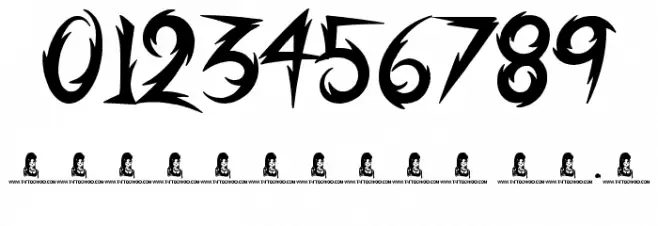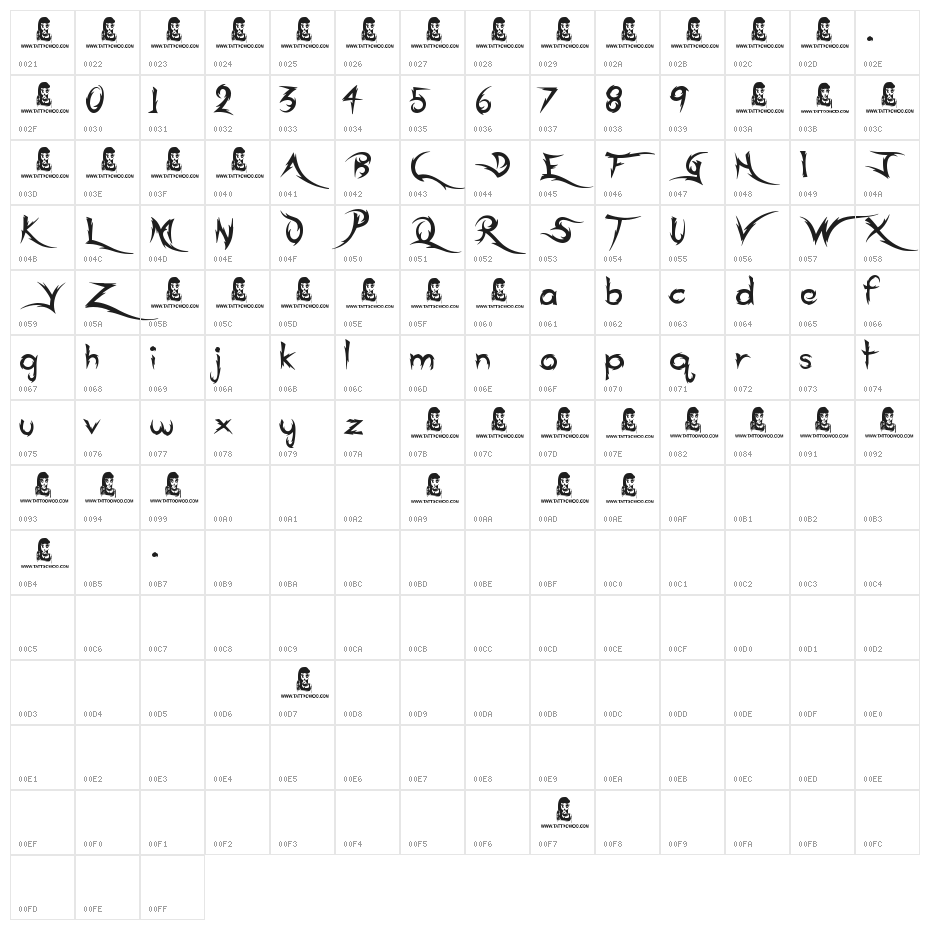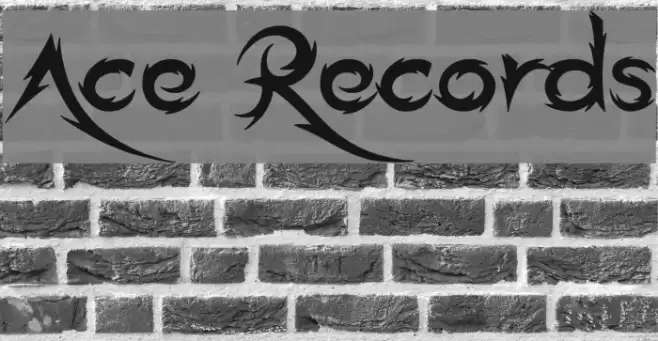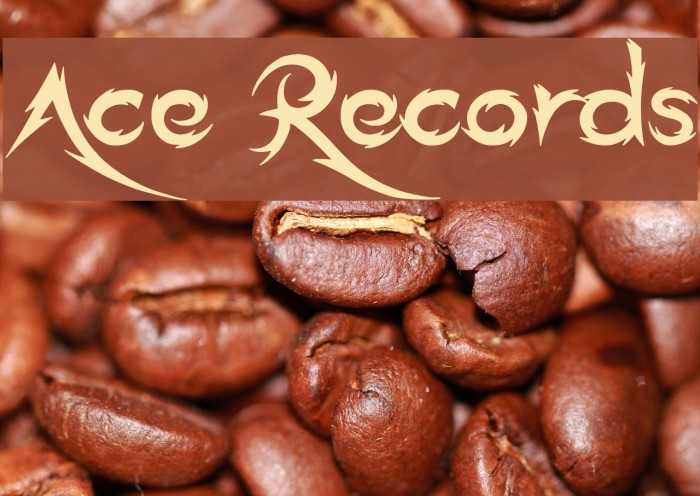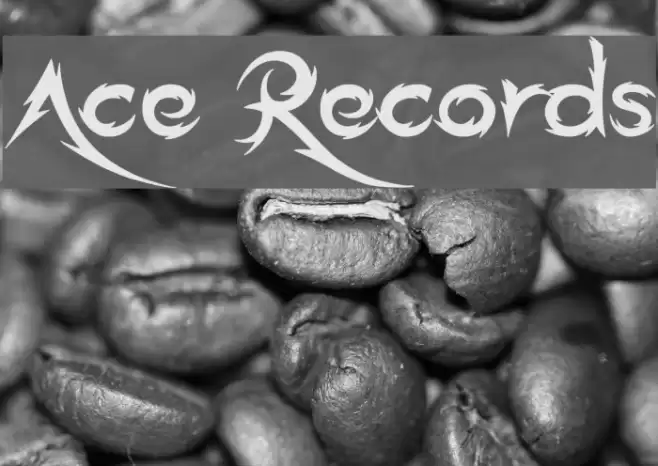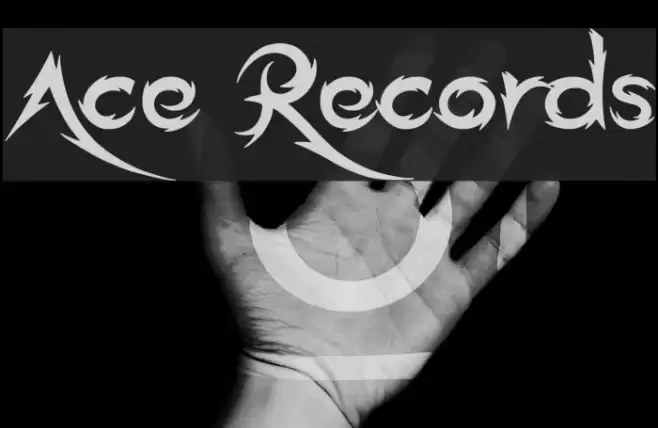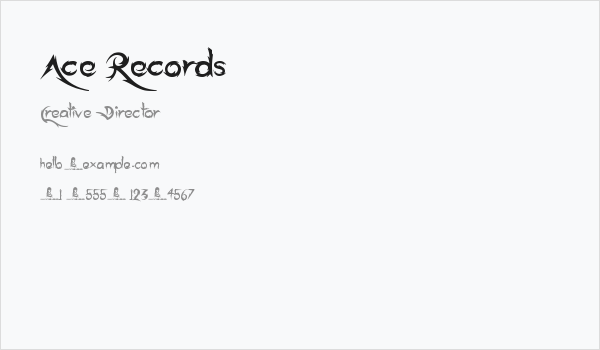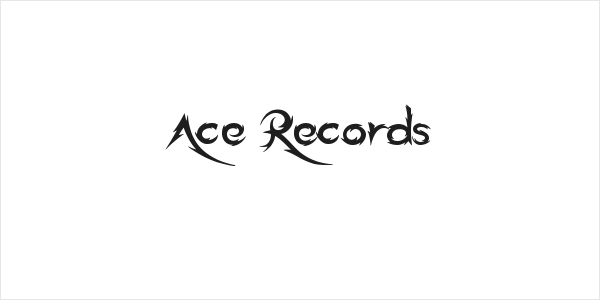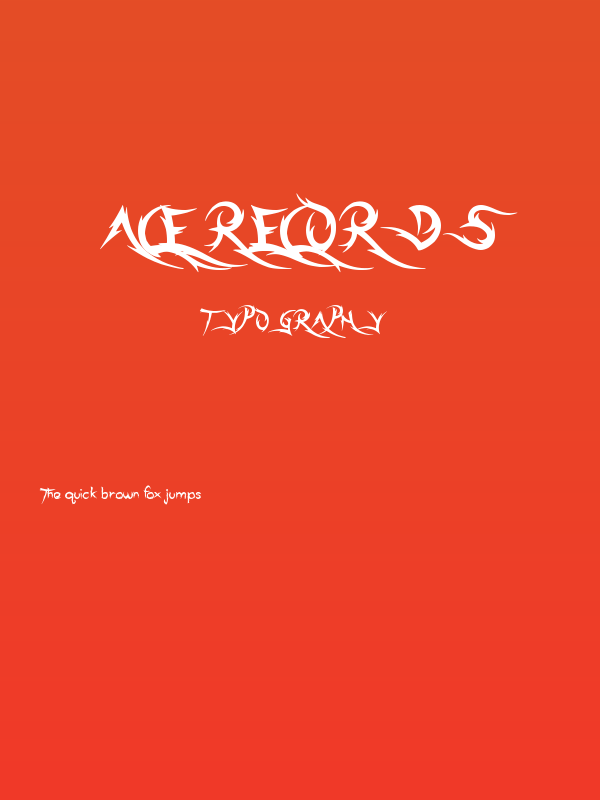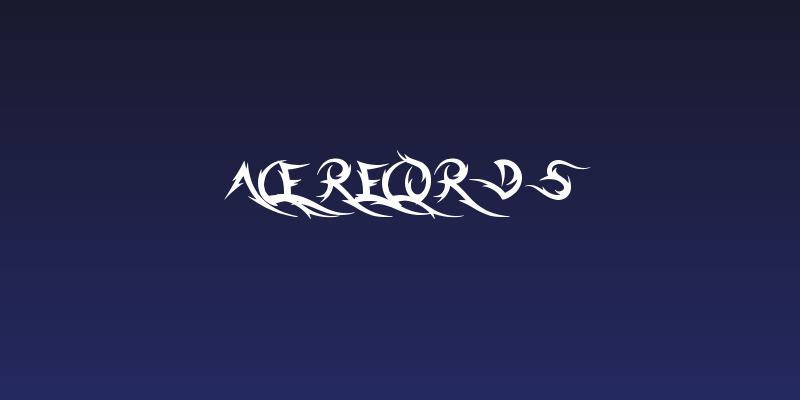
Ace Records Font
Ace Records Description
This font features an aggressive and dynamic style, characterized by sharp, angular lines and dramatic curves. The uppercase letters exhibit a bold, striking appearance with exaggerated serifs and pointed edges, creating a sense of movement and energy. The lowercase letters maintain a consistent style, with a slightly more subdued flair, yet still retain the overall edgy aesthetic. Numbers follow the same design principles, ensuring uniformity across all characters. This font is highly decorative and makes a strong visual impact, ideal for projects that require a bold statement.
| Proposed Projects | Perfect for album covers, posters, branding for edgy or alternative products, and any design needing a bold, impactful statement. |